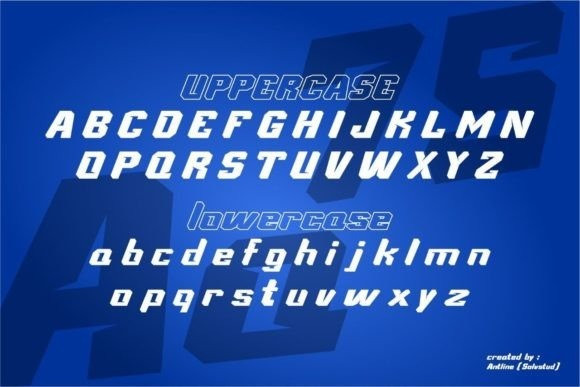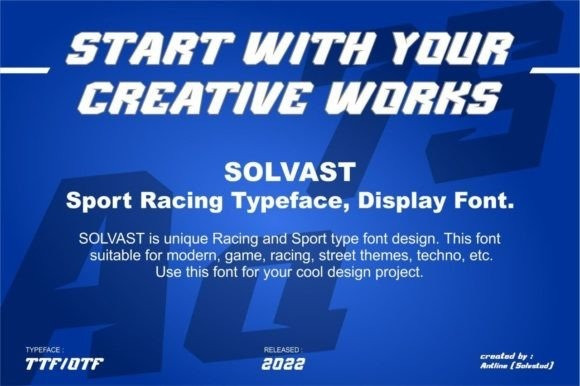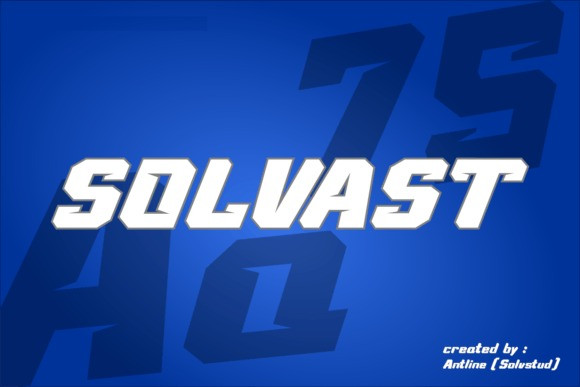
Solvast Font
Solvast Font is a font inspired by racing and modern sports. Its character is suitable for automotive magazine covers, racing game covers, logos & branding, product design, etc.